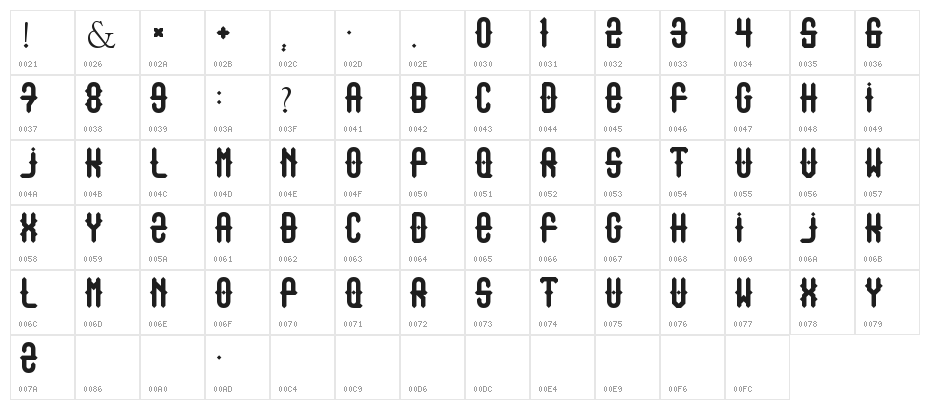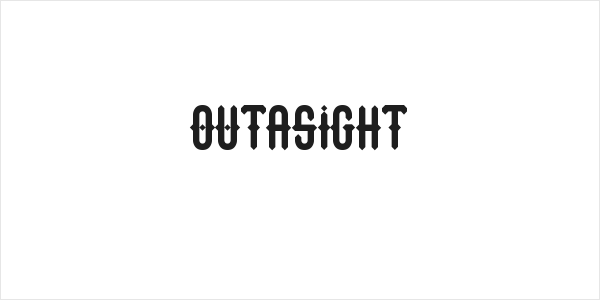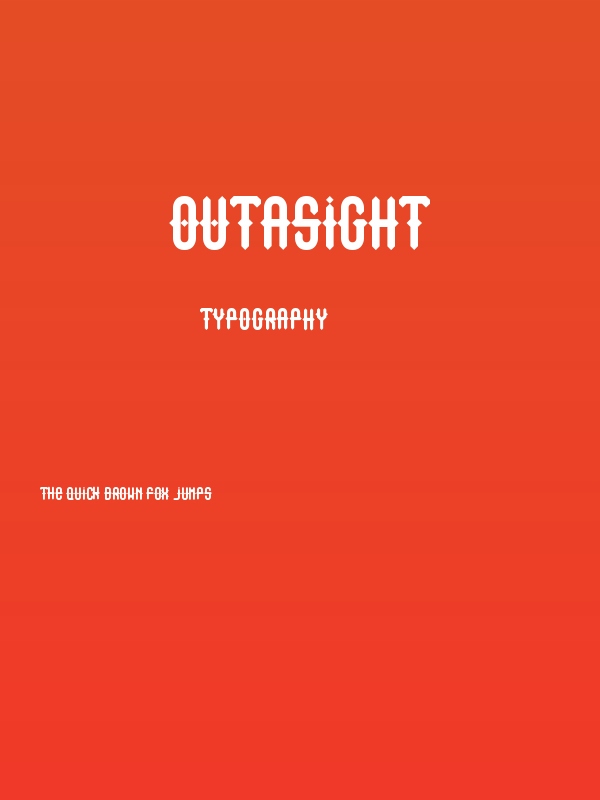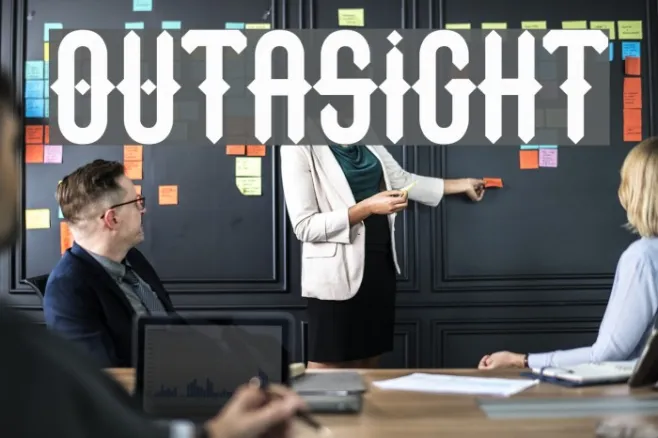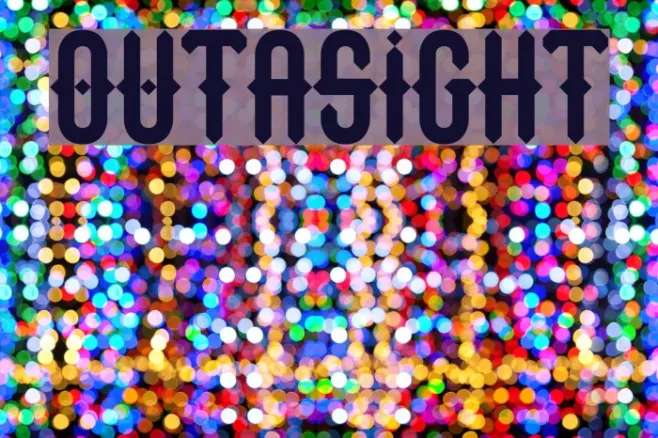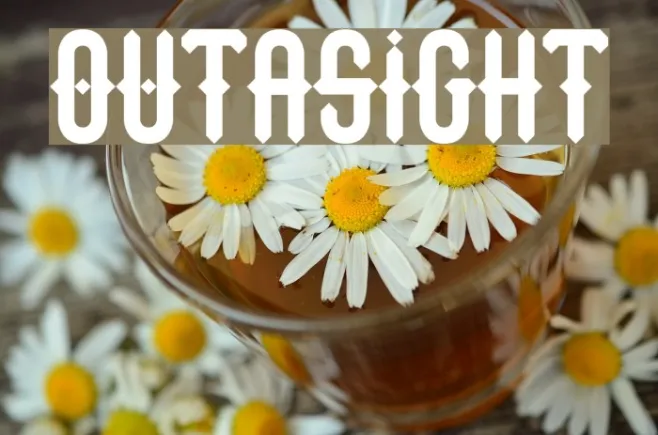
Outasight Font
Outasight Description
This font features a bold, geometric design with a distinctively modern and edgy appearance. The characters are constructed with thick, uniform strokes, creating a strong visual impact. The uppercase letters are particularly striking, with angular edges and a consistent height that lends a sense of uniformity. The lowercase letters maintain the same boldness, ensuring readability while preserving the font's unique style. Numbers and special characters are designed with the same attention to detail, making them stand out. The overall aesthetic is reminiscent of a futuristic or industrial theme, making it suitable for projects that require a bold and assertive typeface.
| Proposed Projects | Ideal for branding, posters, album covers, and any project needing a strong, modern typeface. |